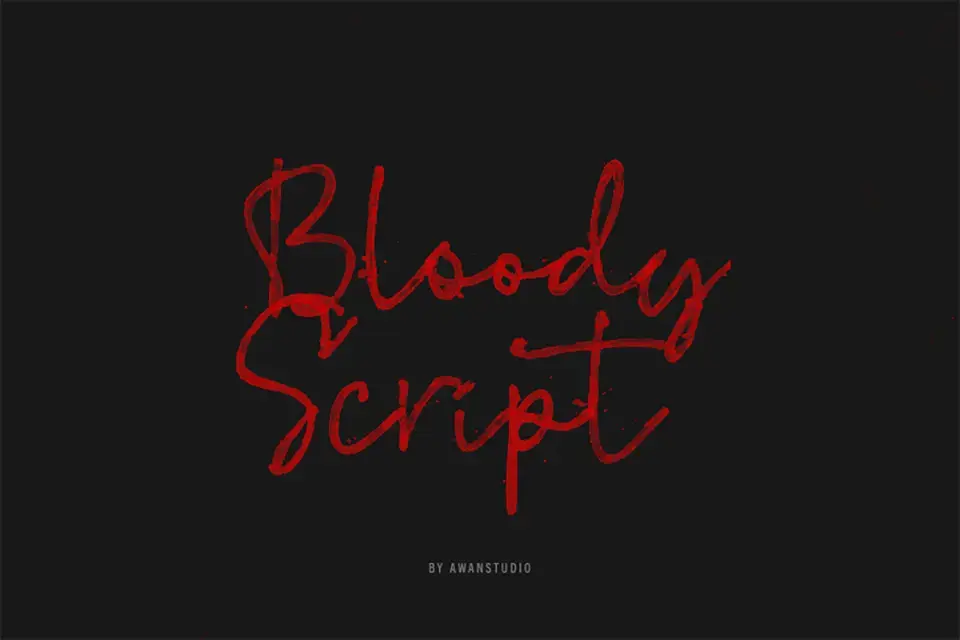
Bloody Script Font
Bloody Script is a distinctive display script font featuring hand-drawn, grungy brush strokes with an eerie, distressed aesthetic. The typeface captures authentic calligraphic flourishes with imperfect letterforms that convey raw energy and dark atmosphere, making it ideal for horror-themed projects, Halloween invitations, movie posters, album covers, and bold display headings. Its decorative nature and textured appearance bring visceral character to branding, editorial design, and creative titles requiring an edgy, unconventional visual impact.****If there is a problem, question, or anything about my fonts, please sent an email to studioawans@gmail.com